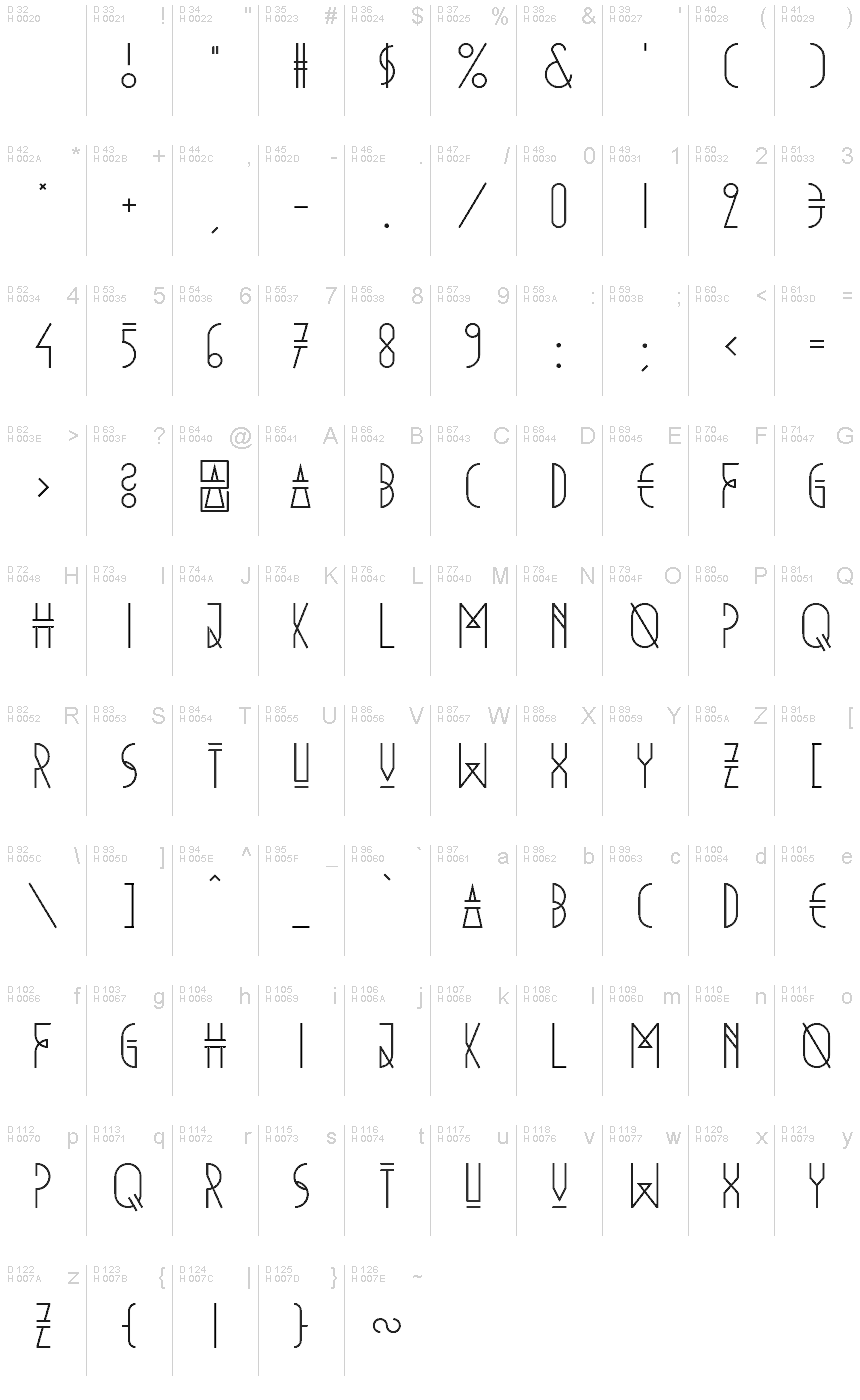
New Vera
New Vera is a captivating display font that exudes a distinct decorative charm. Designed by Davy Diaz Miranda, this light, condensed typeface boasts a visually striking and unique aesthetic. The font's intricate, angular letterforms and delicate stroke variations create an alluring, modern sensibility. New Vera's versatility lends itself to a wide range of applications, from eye-catching headlines and branding to sophisticated editorial design and impactful advertising.
Its refined, distinctive character makes it an excellent choice for designers seeking to elevate their projects with a touch of elegant sophistication.